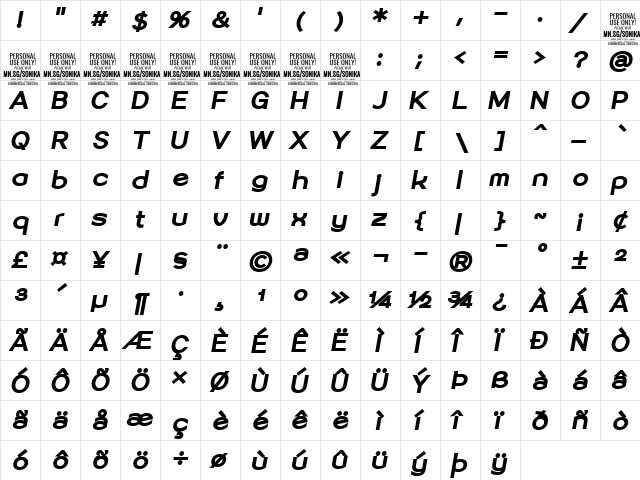
Sonika PERSONAL USE Black Italic
| Foundry | Mans Greback |
| Designer | Mans Greback |
Design Context for Sonika PERSONAL USE Typeface
Sonika PERSONAL USE is a composed and adaptable typeface that performs quietly and consistently across a wide range of design contexts. Its italic angle brings a sense of urgency and motion to the letterforms.
Pro Tip: Use Sonika PERSONAL USE for emphasis, pull quotes, and subheadings where its slanted energy can add rhythm to the layout.